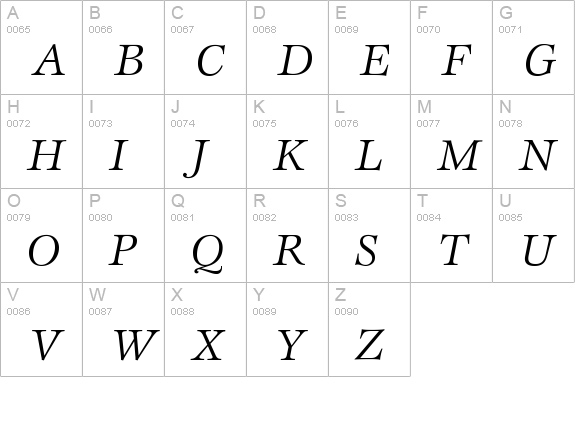
EspritBookItalic Font Details
EspritBookItalic font is a stylish and elegant typeface that exudes sophistication and charm. Its italicized design adds a touch of flair to any text, making it perfect for creative projects, branding, and editorial use. The flowing strokes and delicate curves of EspritBookItalic convey a sense of grace and refinement, making it a versatile choice for a wide range of design applications. What's even better is that EspritBookItalic font is available for free download at FontsMarket.com. This means that you can easily access and use this beautiful typeface in your projects without any cost. Don't miss out on the opportunity to enhance your designs with the timeless beauty of EspritBookItalic font – download it now and elevate your typography game!